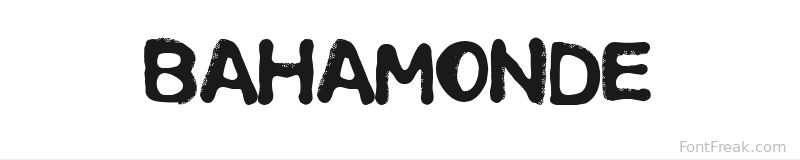
Bahamonde
About Bahamonde
The Bahamonde font, crafted by the talented woodcutter Manero, is a unique display typeface that exudes a playful yet rustic charm. This font falls into the decorative category, characterized by its bold, handcrafted appearance. The stroke weight is substantial, offering a strong visual presence, while the uneven edges give it a lively, organic feel. The contrast is moderate, allowing for excellent readability without sacrificing its artistic flair. Spacing is generous, enhancing the font's legibility and making it suitable for various applications.
Bahamonde shines in specific use cases that capitalize on its distinctive style. It's an ideal choice for wedding invitations, where its whimsical nature can evoke a sense of joy and celebration. Restaurant menus can benefit from the font's engaging personality, making dishes seem more inviting. Additionally, it can bring a unique touch to movie posters, particularly for indie films or those with a creative twist. Graphic designers will find Bahamonde to be a perfect fit for branding projects that require a memorable and eye-catching typeface. Content creators can also leverage this font for social media graphics, posters, and promotional materials, ensuring their messages stand out in a crowded digital landscape.
Targeted towards graphic designers, small business owners, and content creators, the Bahamonde font appeals to anyone looking to infuse their projects with a sense of character and originality. Its free availability makes it accessible to a wide audience, encouraging creative exploration without financial barriers. In a world where individuality is prized, Bahamonde stands out with its distinctive handcrafted look, making it a memorable choice that resonates with both creators and audiences alike. Experience the unique flair of this typeface with a Bahamonde font free download today.